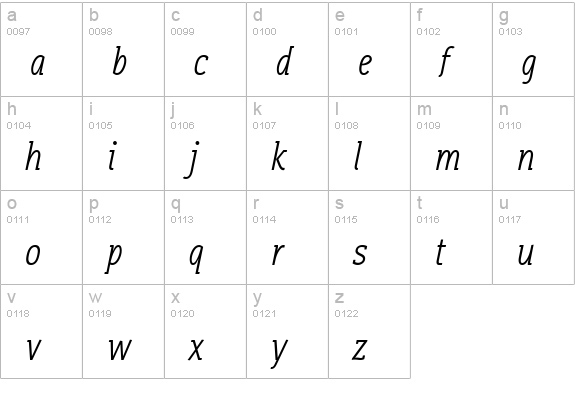
Aaux OfficeItalic Font Details
Aaux OfficeItalic font is a sleek and modern typeface designed for professional use in office settings. Its italic style adds a touch of sophistication to any document or presentation. With its clean lines and elegant curves, Aaux OfficeItalic exudes professionalism and class. And the best part? It's completely free to download at FontsMarket.com! This means you can easily enhance your projects with this high-quality font without breaking the bank. Whether you're creating business reports, marketing materials, or any other type of document, Aaux OfficeItalic is the perfect choice to elevate your work to the next level. Download it today and see the difference it can make in your designs.